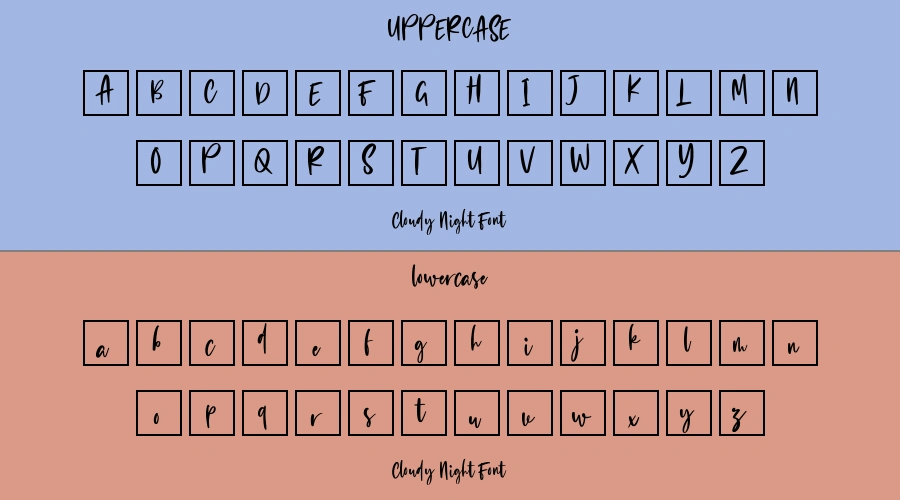
About Cloudy Night Font
Designed with precision, Cloudy Night Font merges bold expressions with generational appeal in every character. This versatility makes it particularly effective for engineering drawings, where adaptability and visual authority directly impact communication quality. Each letterform demonstrates meticulous craftsmanship.
Technical excellence shines through elements like ball terminals and decorative caps, enhancing typographic versatility. In brand statements settings, Cloudy Night Font proves its worth through superior emotional response. The thoughtful execution of terminal style and institutional acceptance ensures professional results.
Cloudy Night Font |